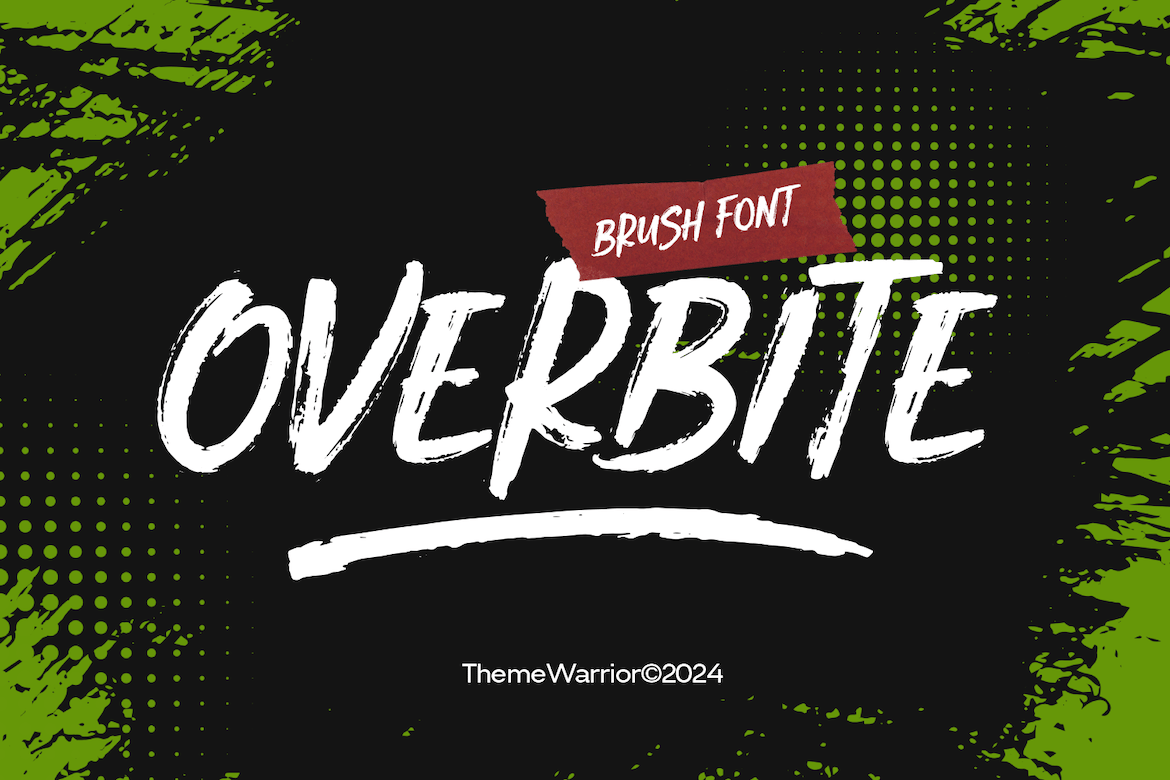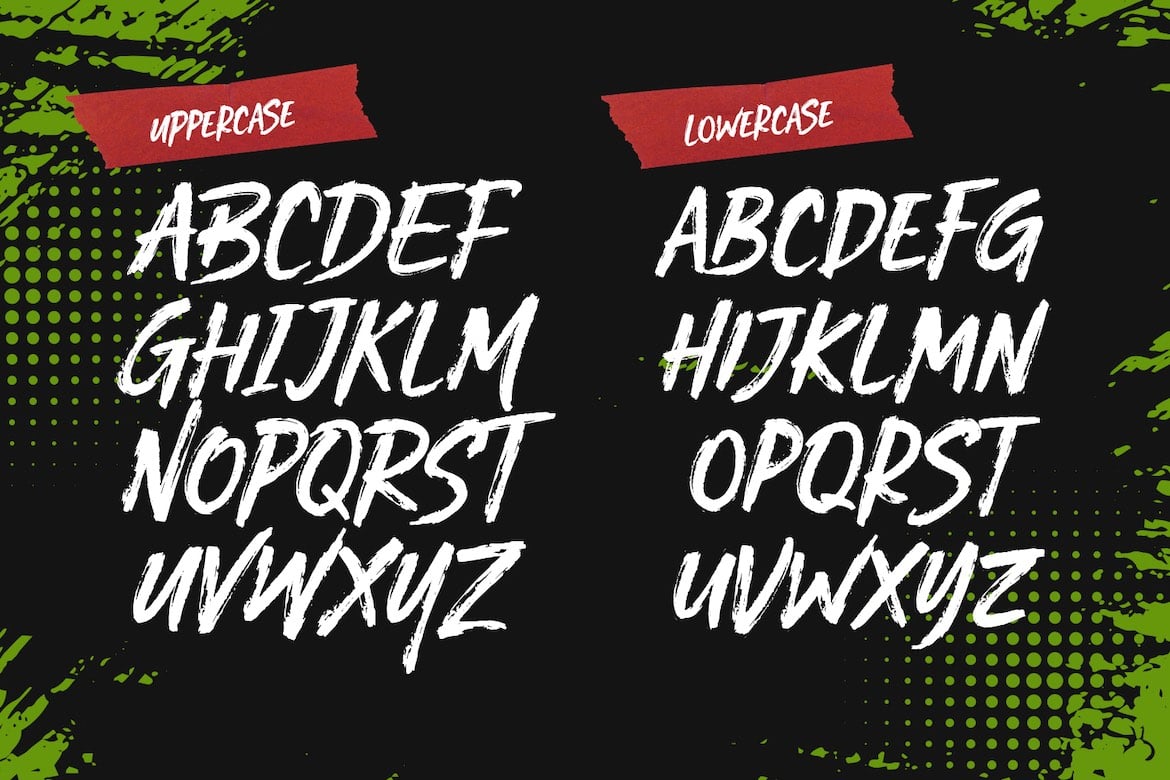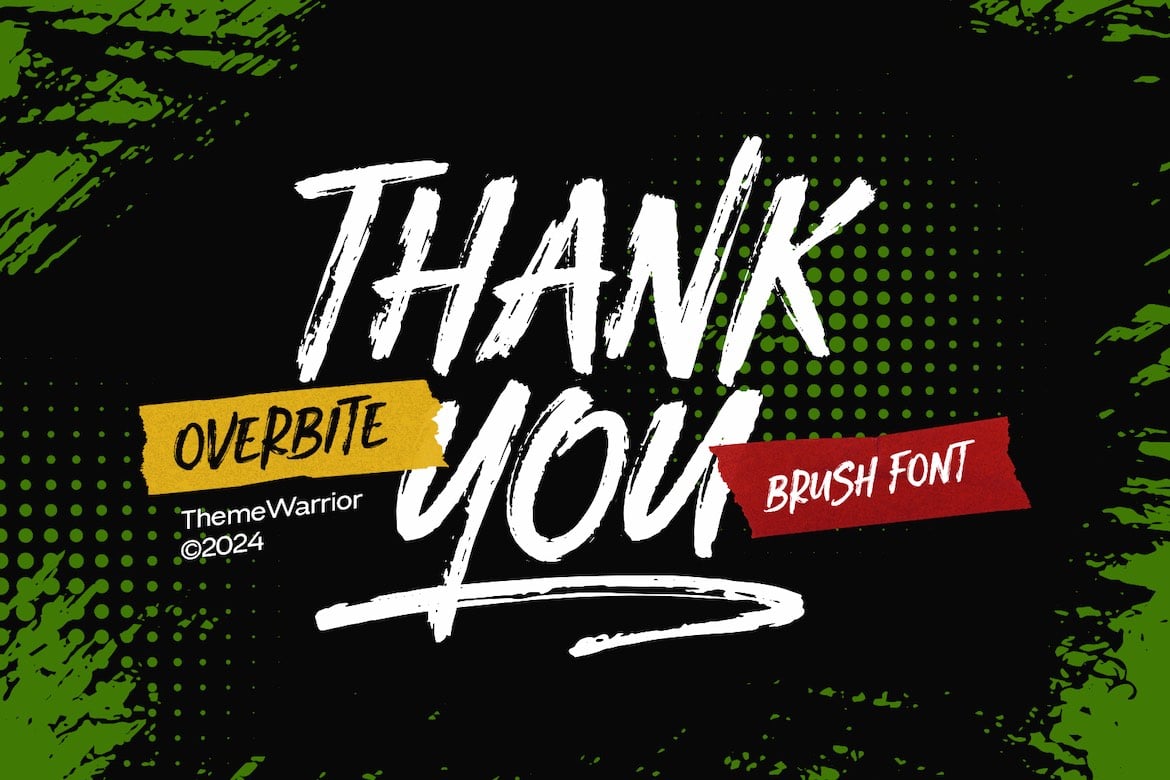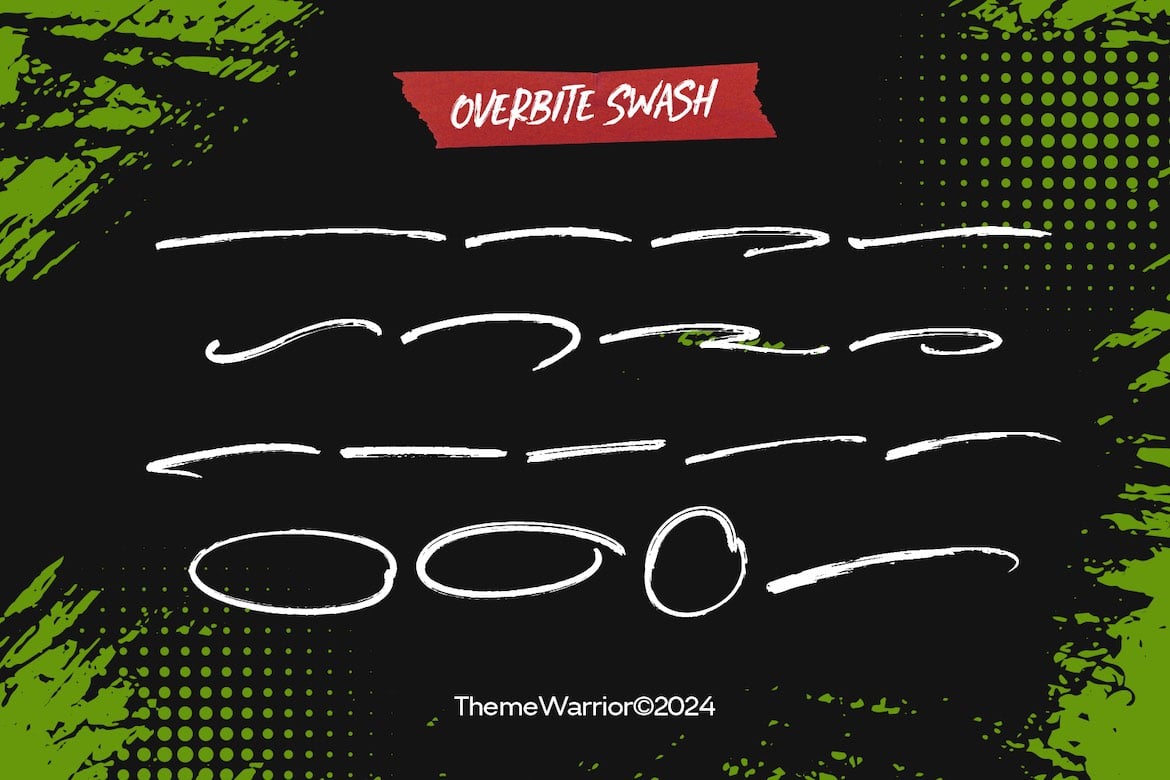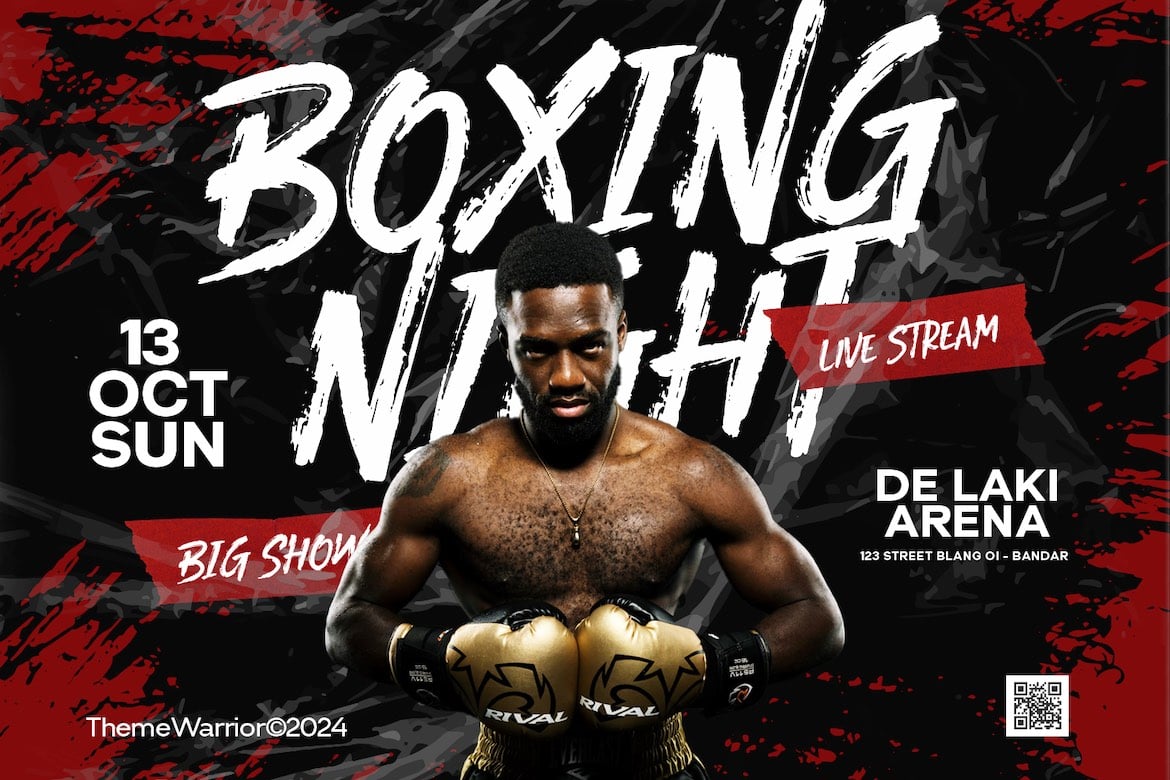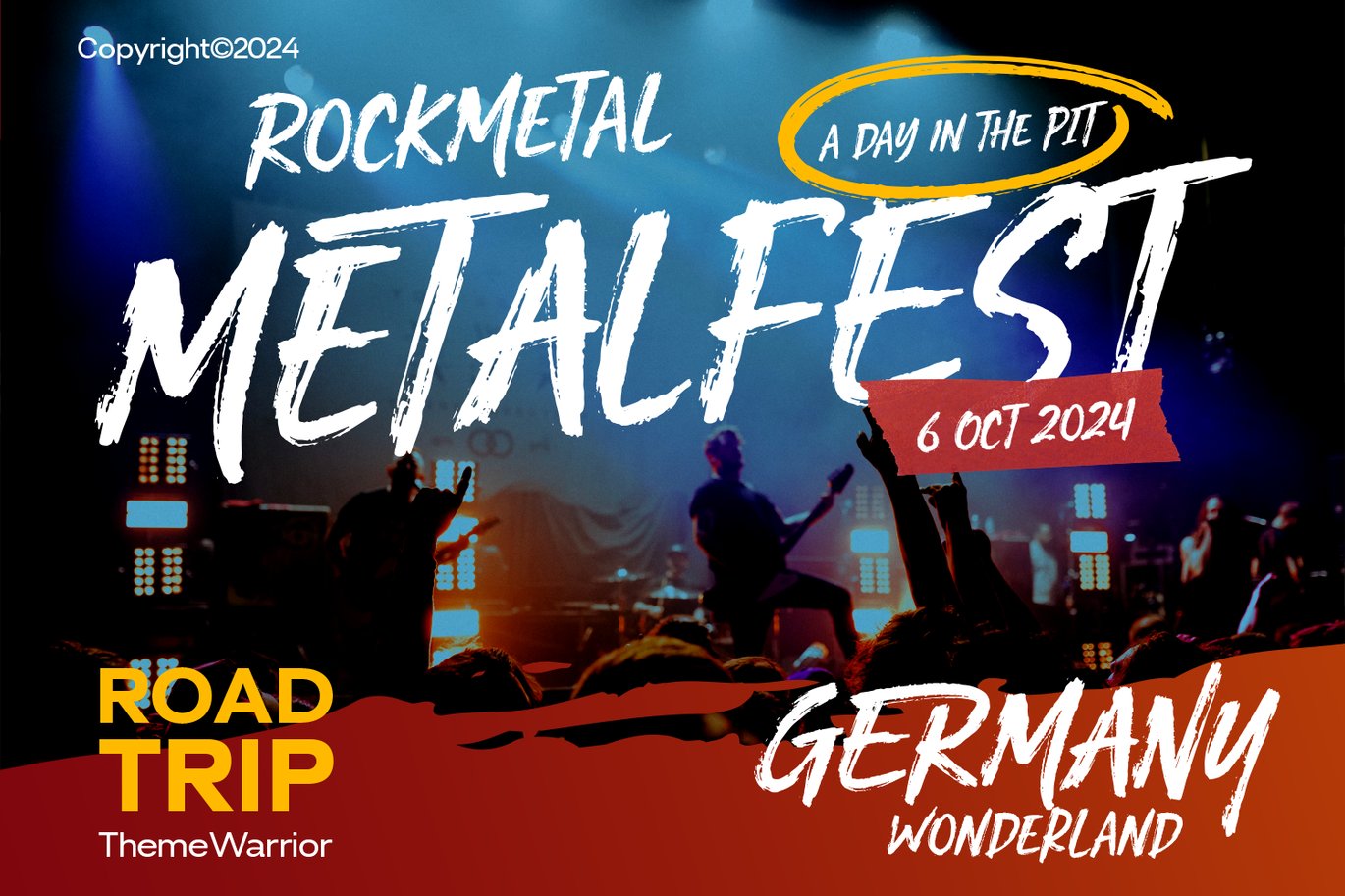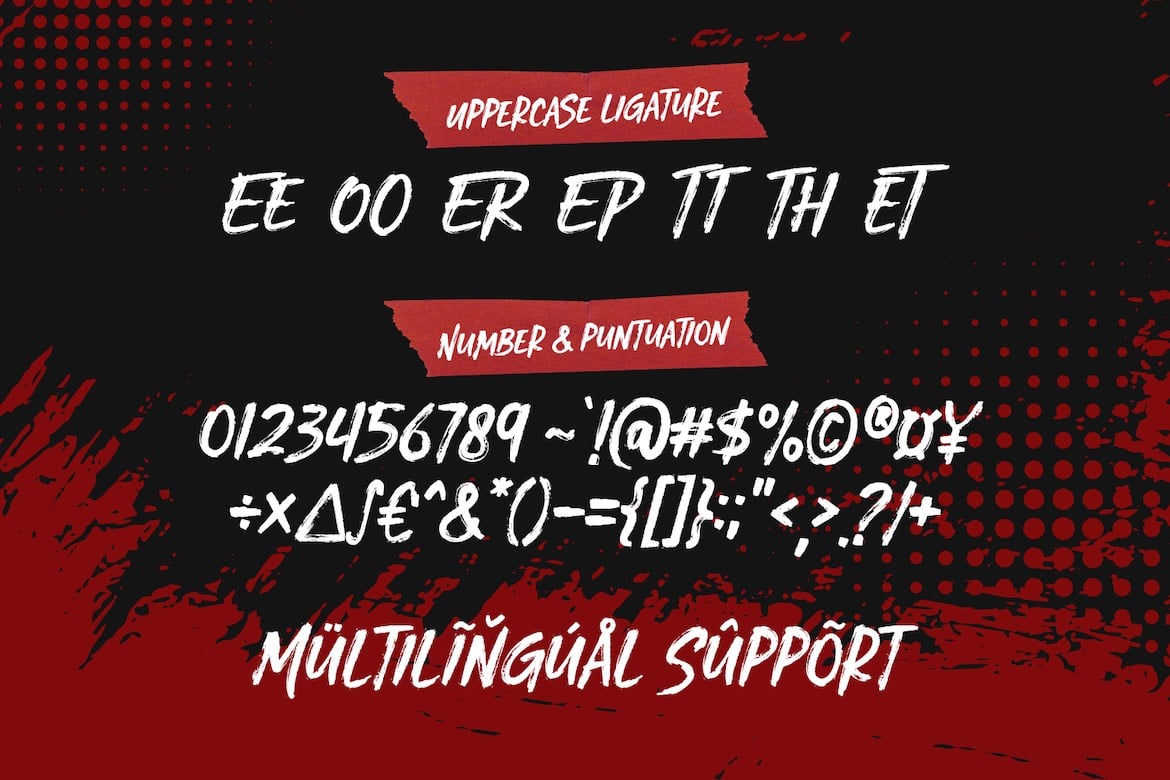
Overbite – Brush Font
Say hello to Overbite – a bold, brush-style font that pack a punch and comes with extra swashes. With its rough strokes and fierce look, Overbite is perfect for attention-grabbing posters, edgy logos, or anything that needs a loud, in-your-face vibe. Get creative and make a statement with Overbite!
- Uppercase & lowercase
- Punctuations
- Swashes